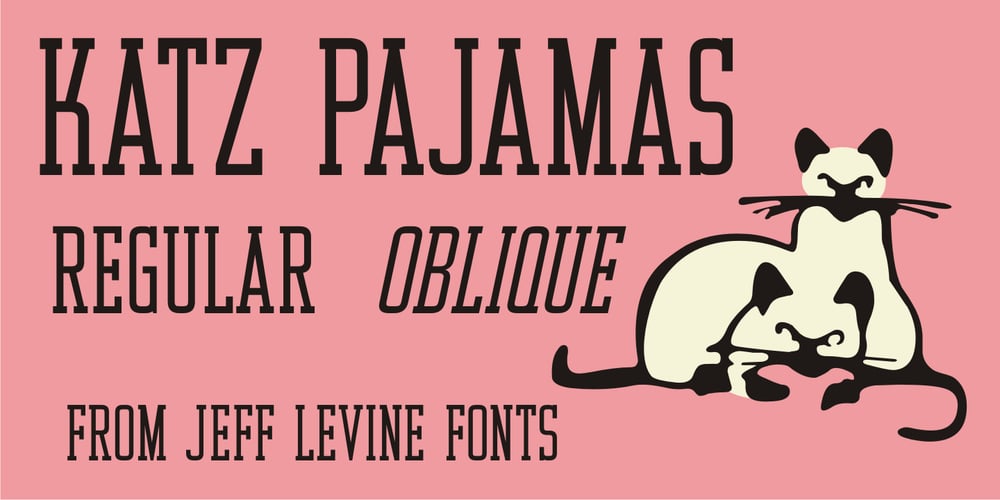
Katz Pajamas JNL
Katz Pajamas JNL font
Katz Pajamas JNL Font Family was designed by Jeff Levine and published by Jeff Levine. Katz Pajamas JNL contains 2 styles and family package options. According to Wiktionary, “the cat’s pajamas” was a slang phrase coined by Thomas A. Dorgan, the well-known journalist, cartoonist and sportswriter of that era. The phrase became popular in the U.S. in the 1920s, as the word “cat” was used as a term to describe the unconventional flappers from the jazz era. This was combined with the word pyjamas (a relatively new women’s fashion during that time) to form a phrase used to describe something that is the best at what it does, thus making it highly sought and desirable. Wikipedia adds that Dorgan was the first to use the terms “twenty-three, skidoo”, and “yes, we have no bananas”, “apple sauce” and “solid ivory”, which also became part of the slang of the “Roaring Twenties”. Katz Pajamas JNL is a condensed slab serif typeface based on the title lettering for the 1944 sheet music “Pretty Kitty Blue Eyes”, hence the pun-laden font name paying homage to this bit of verbal Americana as well as making the pajamas a pair owned by Mr. Katz instead of the fashionable feline. Available in both regular and oblique versions.